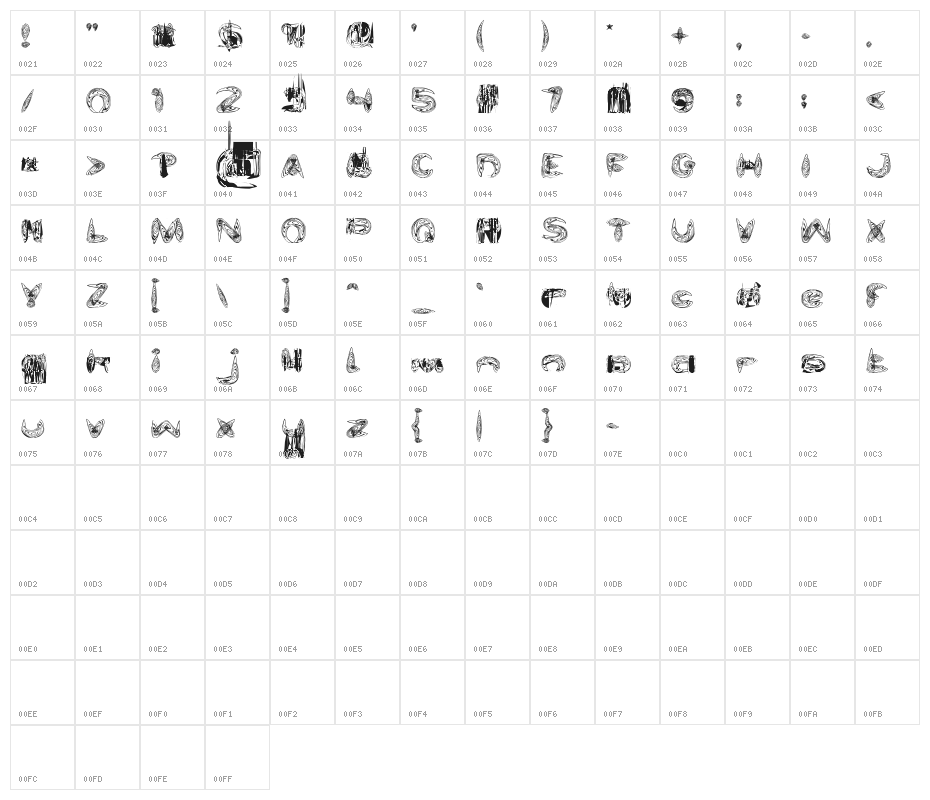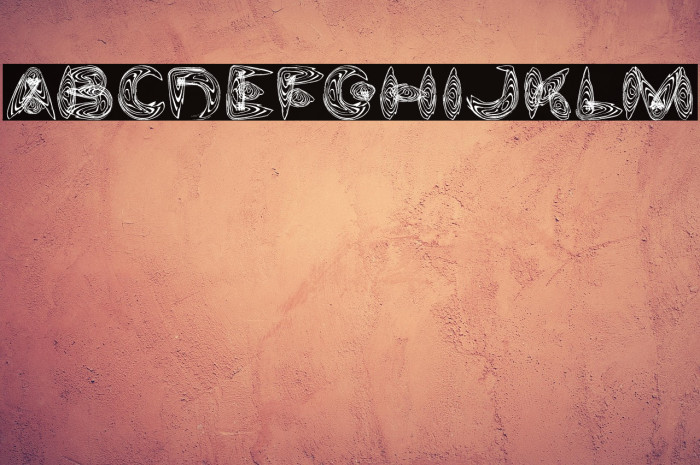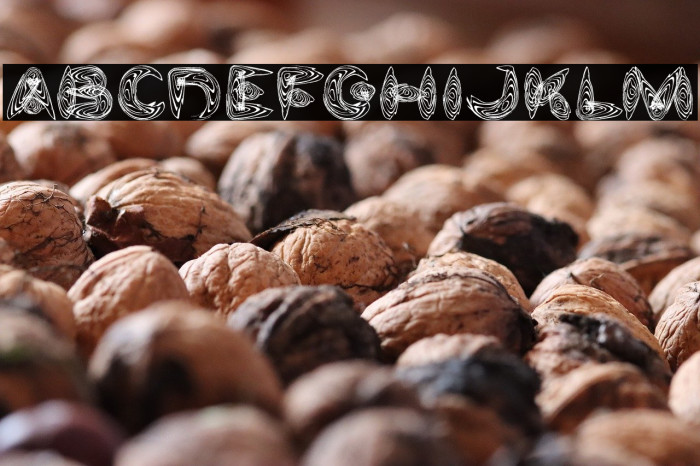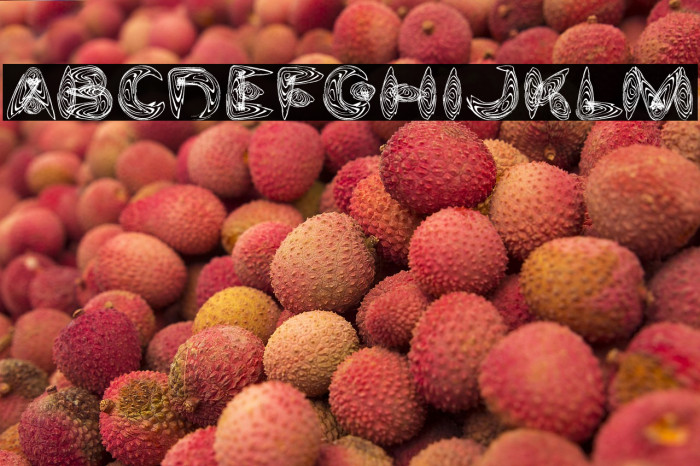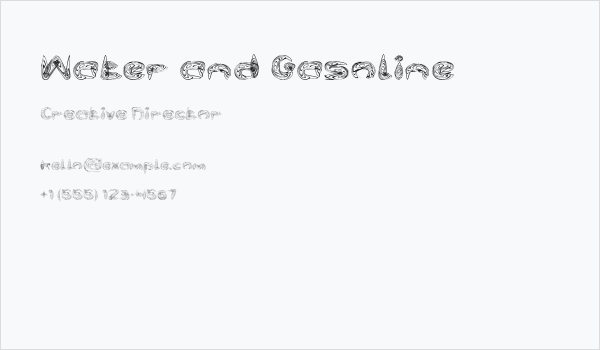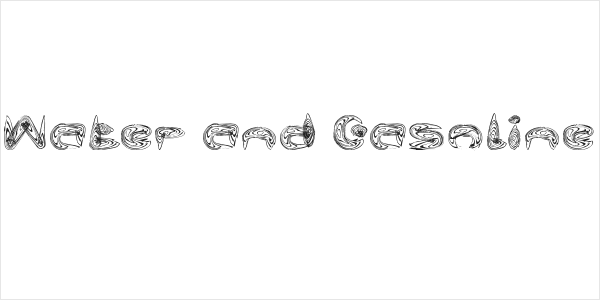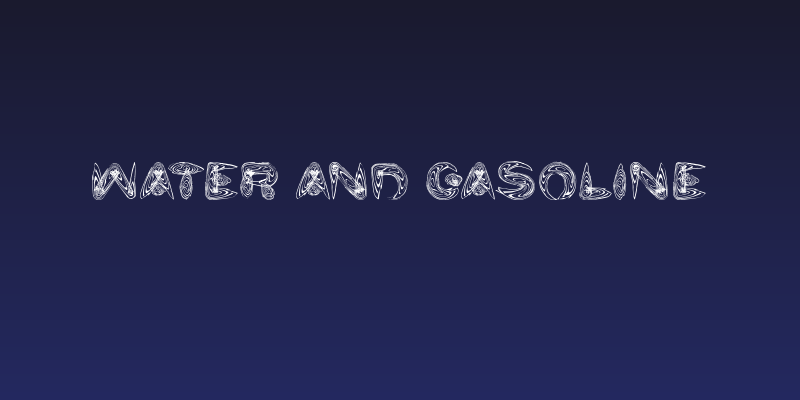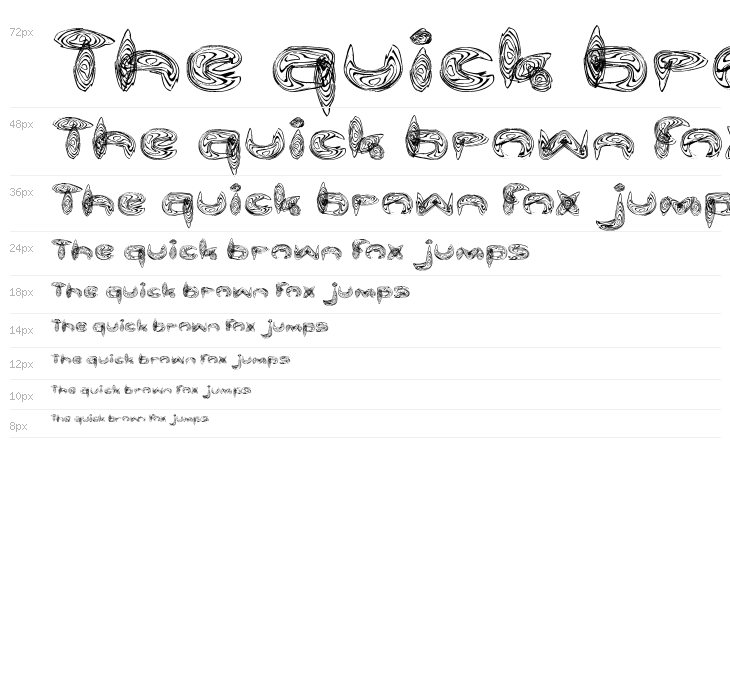
Water and Gasoline Font
Water and Gasoline Description
This font features a highly decorative and abstract design, with each character appearing as if it is composed of swirling, fluid-like patterns. The intricate detailing gives the impression of movement and energy, reminiscent of liquid or smoke. The characters maintain a consistent form but are filled with complex, overlapping lines that create a sense of depth and texture. This unique style makes it stand out, offering a visually striking appearance that is both artistic and unconventional.
| Proposed Projects | Ideal for artistic projects, album covers, posters, or any design work that requires a bold and creative statement. |